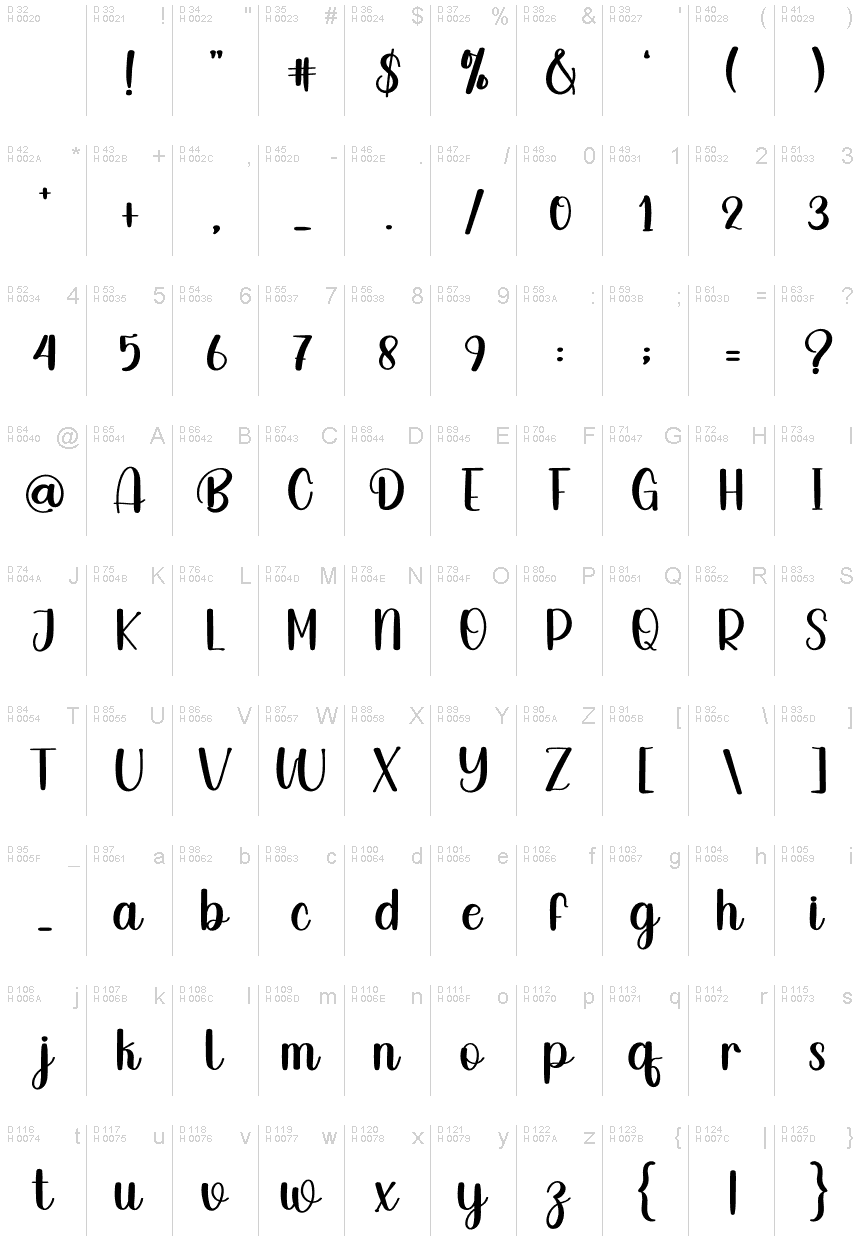
Miss Christmas
Miss Christmas is a bold handwritten font designed by Inermedia Studio. Perfect for crafting holiday cards and posters, this font can also be used to add a unique touch to logos, greeting cards, and other creative projects.